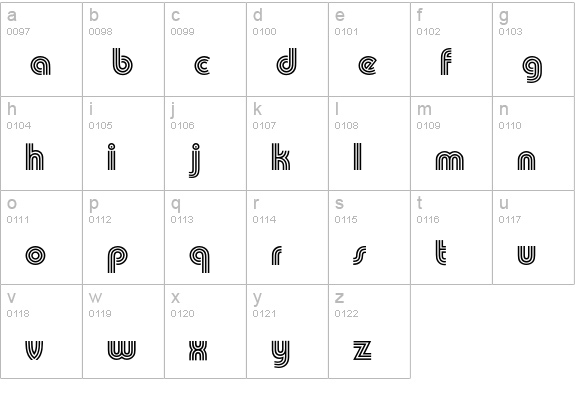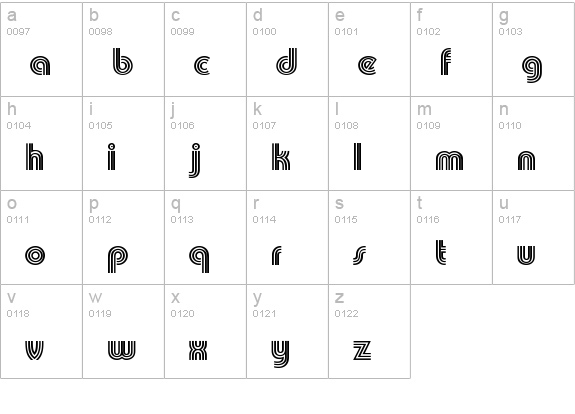
PumpEF-Triline font is a versatile and modern typeface that brings a unique and dynamic look to any design project. With its sleek and bold letterforms, PumpEF-Triline is perfect for making a statement in headlines, logos, posters, and more. The triple-line detailing adds a touch of sophistication and depth to the text, making it stand out from the crowd. One of the best things about PumpEF-Triline font is that it is available for free download at FontsMarket.com. This means that you can easily access this stylish and eye-catching font without any cost, allowing you to enhance your designs without breaking the bank. Whether you're a graphic designer, a web developer, or a hobbyist looking to elevate your projects, PumpEF-Triline font is a fantastic choice that will add a touch of creativity and flair to your work. Download it today and start creating stunning visuals with this fabulous font!